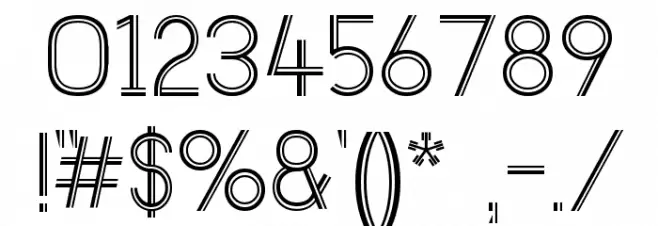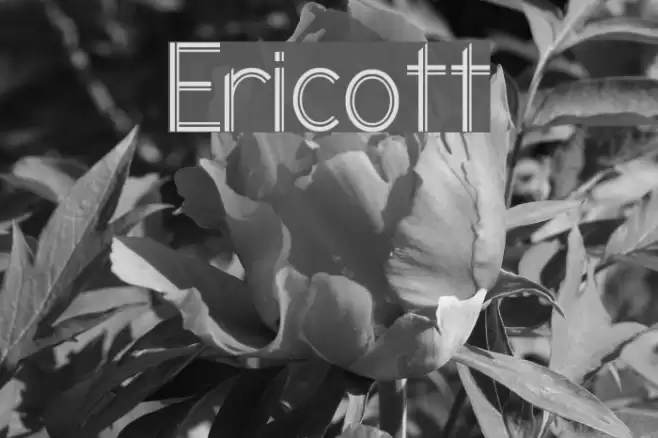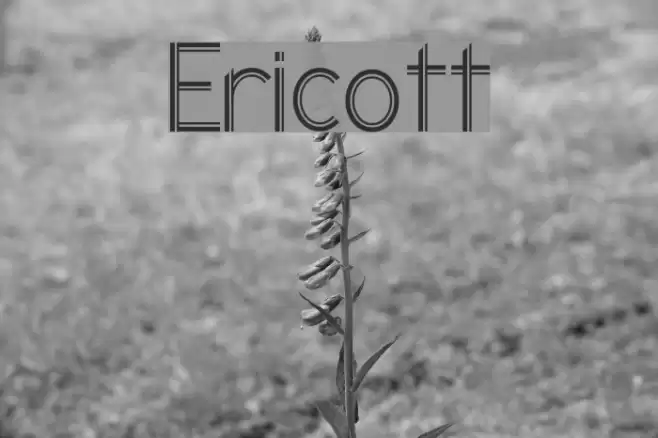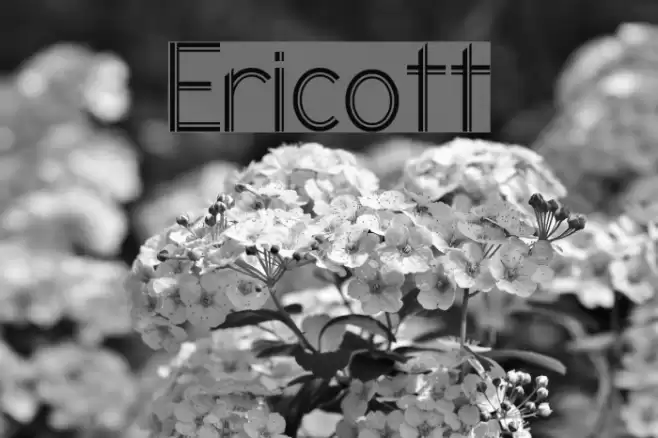
Ericott Font
Ericott Description
This font features a modern, geometric design with clean lines and a structured appearance. The characters are composed of multiple parallel lines, giving them a unique, layered look. The uppercase letters are bold and commanding, while the lowercase letters maintain a consistent style with slightly softer curves. The numerals are distinct and easily readable, matching the overall aesthetic of the alphabet. Special characters are well-integrated, maintaining the font's cohesive design. This font's precise and contemporary style makes it suitable for a variety of creative applications.
| Proposed Projects | Ideal for branding, posters, headlines, and digital media projects that require a modern and distinctive look. |